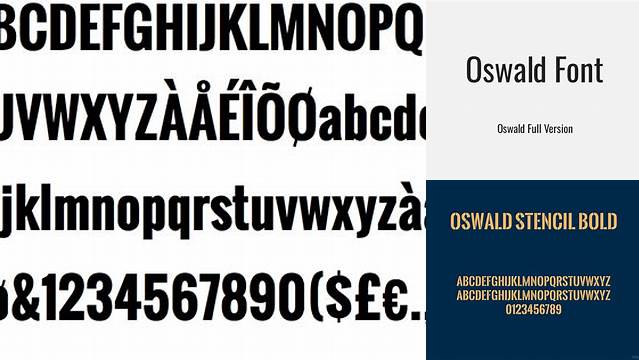
Oswald Stencil Bold Font: Free Download & Usage Tips
Hey guys, let's dive into the awesome world of fonts! Today, we're talking about a real powerhouse: Oswald Stencil Bold. You've probably seen it around, gracing everything from posters to websites with its strong, distinctive look. It’s a font that commands attention, and the best part? You can often snag it for free! This article is your ultimate guide to understanding Oswald Stencil Bold, where to find free downloads, and how to make it sing in your design projects. We'll break down why this font is so popular, its best use cases, and some nifty tips to ensure your designs stand out.
Why Oswald Stencil Bold Stands Out
So, what's the big deal with Oswald Stencil Bold, you ask? Well, it’s a typeface that’s designed with impact in mind. Its bold, condensed letterforms give it a powerful presence, making it perfect for headlines, titles, and any text that needs to grab your audience immediately. The 'stencil' aspect adds a unique, industrial flavor – think of those classic stenciled numbers on shipping crates or military equipment. This gives it a rugged, utilitarian feel that’s incredibly stylish. Unlike some other bold fonts that can feel a bit soft, Oswald Stencil Bold maintains a sharp, crisp edge. Its structure is highly legible even at smaller sizes, which is a huge plus for designers. The consistency in its weight and width across characters ensures a balanced and professional appearance. It’s not just about being loud; it's about being clear and commanding. This font truly embodies a sense of strength and determination, making it a go-to for projects that need to convey authority and confidence. It's also surprisingly versatile, fitting into a variety of design aesthetics, from vintage-inspired to modern and minimalist. The slightly extended stroke endings add a subtle touch of character without sacrificing readability.
The Versatility of Oswald Stencil Bold in Design
One of the most impressive things about Oswald Stencil Bold is its sheer versatility. This isn't a font you'll likely use for body text – it's a display font, a star player for attention-grabbing elements. Think bold headlines that cut through the noise, impactful titles on posters and flyers, or even short, punchy calls to action on websites. Its stencil aesthetic lends itself beautifully to designs with an urban, industrial, or vintage vibe. Imagine it on a craft beer label, a band poster for an indie rock group, or a T-shirt design with a retro feel. But don't pigeonhole it! The clean lines and strong structure also work surprisingly well in more modern, minimalist layouts where you want a single element to pack a punch. It can add a touch of unexpected character to a sleek corporate brochure or a minimalist website header. The condensed nature of the font means it's incredibly space-efficient, allowing you to fit more text into a confined area without it looking cramped. This is a massive advantage when working with limited design space. It’s the kind of font that brings a sense of urgency and importance to whatever it’s applied to. Whether you're designing a social media graphic, a book cover, or even an app interface, Oswald Stencil Bold can provide that distinctive edge.
Best Practices for Using Oswald Stencil Bold
Using Oswald Stencil Bold effectively is all about context and pairing. Since it's such a strong, dominant font, it's usually best to let it shine on its own. Limit its use to headlines, subheadings, or short bursts of text where you want maximum impact. Avoid using it for long paragraphs; its condensed nature and stencil effect can make extended reading difficult and tiring. When pairing Oswald Stencil Bold with other fonts, choose something that complements rather than competes. A simple, clean sans-serif font (like Open Sans or Lato) or a more classic serif font can provide a nice contrast and allow Oswald Stencil Bold to stand out as the hero element. Think of it like this: Oswald Stencil Bold is the lead singer, and your other fonts are the backup band. You want harmony, not a cacophony! Consider the overall mood of your design. Is it gritty and industrial? Modern and minimalist? Vintage and retro? Oswald Stencil Bold can adapt, but its inherent character should align with your project's aesthetic. Don't be afraid to play with spacing (kerning and tracking) to fine-tune its appearance, especially in large headlines. Adjusting these can make a world of difference in how polished and professional your text looks. Remember, the goal is to enhance readability and visual appeal, not detract from it.
Exploring Alternatives if Oswald Stencil Bold Isn't Available
Sometimes, you might be searching for that perfect Oswald Stencil Bold free download and find it's not quite what you need, or perhaps the specific stencil version is hard to come by for free. No worries, guys! The world of fonts is vast, and there are plenty of other fantastic options that offer a similar vibe. If you like the bold, condensed, and impactful nature of Oswald, check out other fonts from the Oswald family itself – they often have variations that might scratch that itch. Fonts like Bebas Neue are incredibly popular for their similar condensed, all-caps aesthetic and are widely available for free. Anton is another excellent choice, offering a very bold and condensed feel. For a more distinct stencil look, you might explore fonts like Stardos Stencil or Army stencil, though licensing for these can vary, so always check. The key is to identify what you love most about Oswald Stencil Bold – is it the boldness, the condensed width, the stencil cut, or the industrial feel? Once you know that, you can search for fonts that share those specific characteristics. Many font sites allow you to filter by style, width, and even tags like 'stencil' or 'industrial', making your search much more efficient. Don't be afraid to experiment; sometimes, an alternative font can bring a fresh perspective to your design.
Oswald Stencil Bold vs. Regular Oswald Font
It's important to understand the distinction between Oswald Stencil Bold and the standard Oswald font family. While they share the same underlying structure and design philosophy – condensed, highly legible, and impactful – the 'Stencil' and 'Bold' additions make a significant difference. The regular Oswald font, in its various weights, offers a clean, modern sans-serif aesthetic. It's incredibly versatile and can be used for both headlines and shorter blocks of text. The 'Bold' weight of the regular Oswald provides that strong presence we've discussed, but without the characteristic stencil cutouts. The Oswald Stencil Bold, on the other hand, is where the real character comes in. The stencil effect involves adding deliberate breaks or gaps within the letterforms, mimicking the way letters would be cut into a stencil for spray-painting or stamping. This instantly adds a layer of grit, industrial flair, and a vintage or utilitarian feel that the regular Oswald lacks. So, while both are excellent for headlines, the Stencil version brings a specific aesthetic that the regular version doesn't. If you're aiming for that rugged, stamped look, the Stencil is your go-to. If you need a clean, bold sans-serif, the regular Oswald Bold might suffice. Understanding this difference is crucial when you're searching for that Oswald Stencil Bold free download and want to ensure you get the exact look you're after.
Optimizing Headlines with Oswald Stencil Bold
Let's talk about making your headlines absolutely pop using Oswald Stencil Bold. This font is practically designed for it! Because it's so bold and condensed, it can fit a lot of text into a small space, which is great for social media captions or tight print layouts. For maximum impact, consider using it in all caps. The stencil effect really shines when the letters are large and clear. Ensure proper kerning – the spacing between individual letters – especially in headlines. Sometimes, the default spacing can look a bit too tight or too loose. Tweaking this manually can make your headline look incredibly professional and balanced. Another trick is to play with the letter spacing (tracking) for the entire word or phrase. Slightly increased tracking can sometimes give a bold, condensed font like Oswald Stencil Bold a bit more breathing room and elegance. Think about the background you're placing it on. A high-contrast background will make the font stand out even more. If you're using the stencil version, be mindful of busy backgrounds that might make the 'gaps' in the letters hard to read. Sometimes, adding a subtle drop shadow or an outline can enhance legibility further, depending on your design. Remember, the goal is to make people stop scrolling or look twice. Oswald Stencil Bold, used strategically, is your best friend for achieving this.